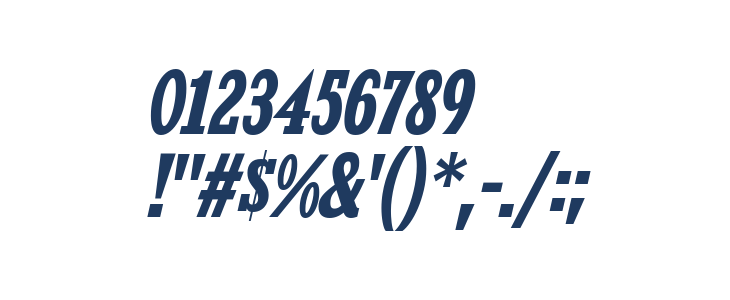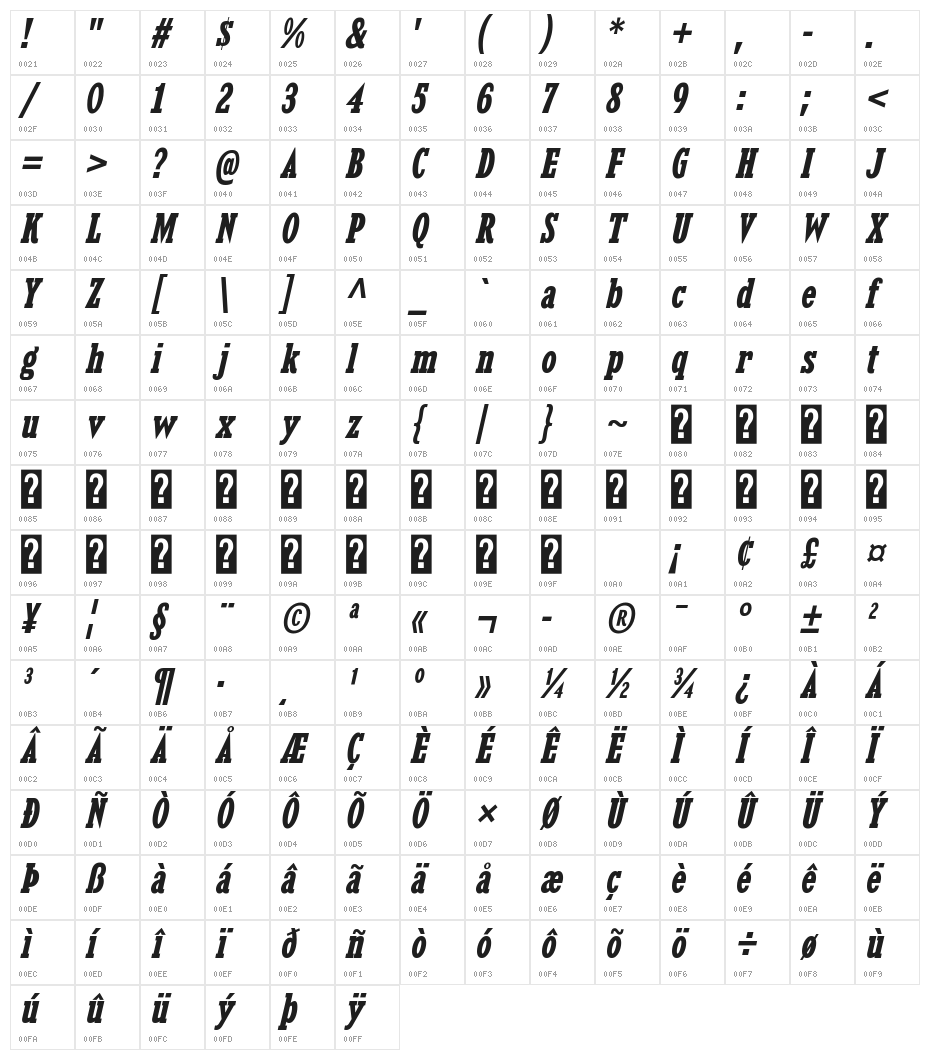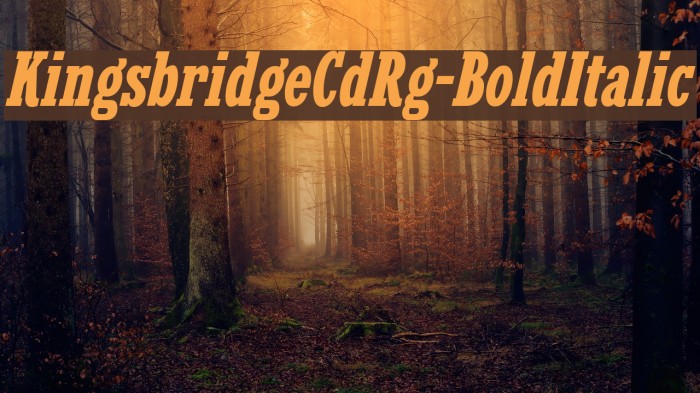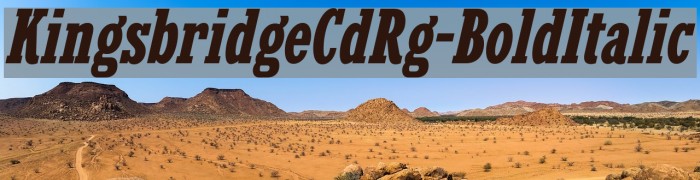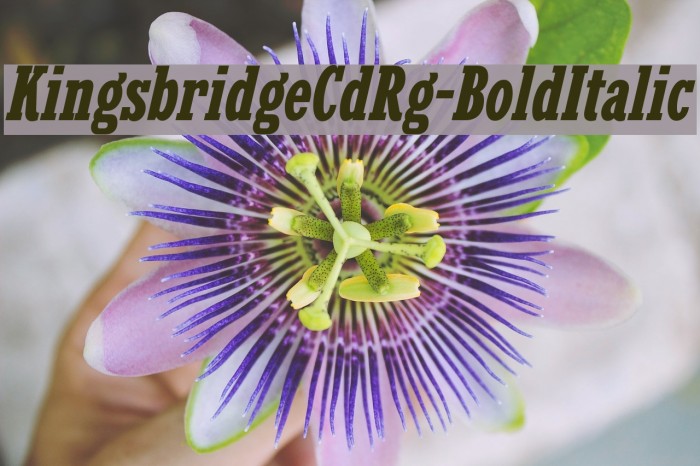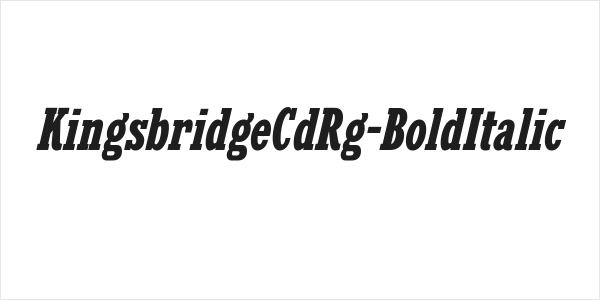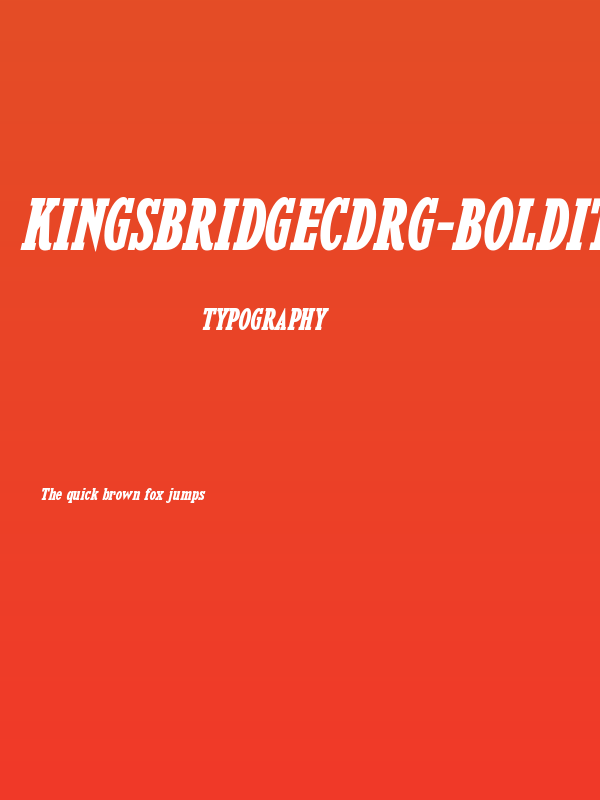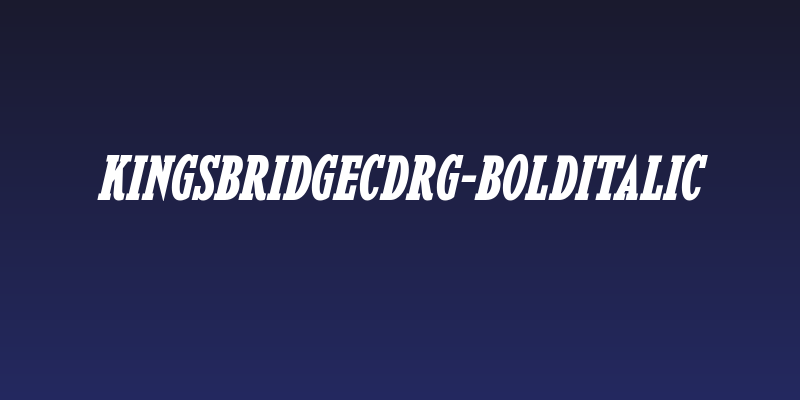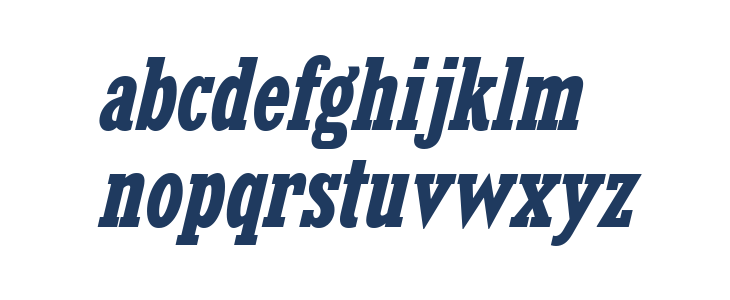
KingsbridgeCdRg-BoldItalic Font
KingsbridgeCdRg-BoldItalic Description
This font features a bold and italicized style, characterized by its strong and dynamic presence. The letters are condensed, giving it a compact appearance that enhances its boldness. The italic slant adds a sense of movement and urgency, making it suitable for impactful headlines and attention-grabbing text. The strokes are thick and consistent, providing a high contrast that ensures readability even at smaller sizes. The overall design is modern yet retains a classic touch, making it versatile for various applications. The numerals and special characters maintain the same bold and italicized style, ensuring uniformity across all text elements.
Proposed ProjectsThis font is perfect for projects that require strong visual impact, such as advertising campaigns, poster designs, branding materials, and magazine covers. Its bold and dynamic style makes it suitable for modern and edgy designs.